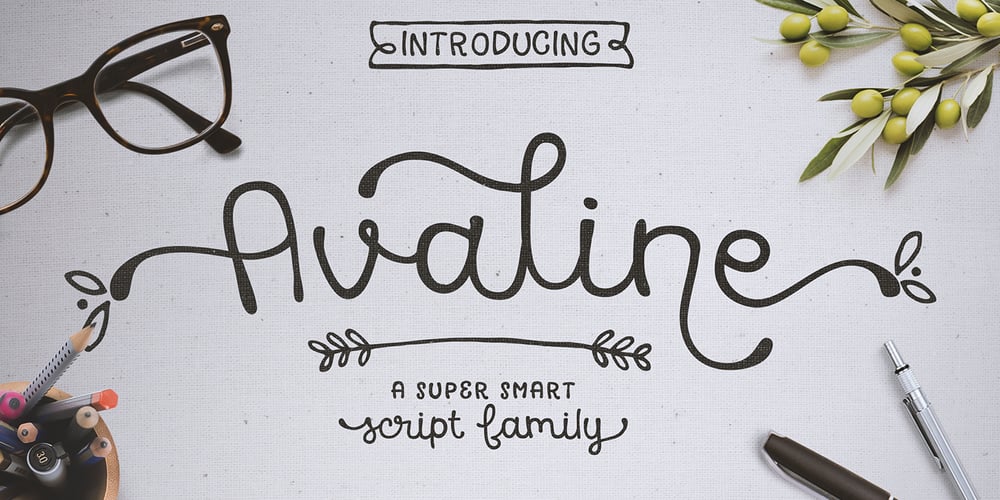
Avaline Script Font Family was designed by Kimmy Kirkwood and published by Kimmy Design. Avaline Script contains 10 styles and family package options. Avaline is a super smart script font that was 100% handmade. Inspired by hand lettering doodles, the font family combines a mischievous spirit and cheerful style. Its playful letterforms come in Light, Regular, Bold and Sketch, and it comes with tons of language support and fun alternatives. Packed with OpenType features, Avaline comes together to make a truly authentic hand script family package. Its imperfect hand-drawn style is utilized by contextual alternatives – giving each character 3 subtle variations as well as special styles that appear automatically based on where they appear in a line of text. Stylistic alternatives offer completely different styles for all capital and some lowercase letters. Swashes provide numerous flourish options for ascending & descending letters as well as characters that start or end text lines. Small caps and titling alternatives provide great secondary text options, converting the script letterforms to more proportional small cap ones. Avaline also comes with a massive set of extras, including catchwords, swashes & flourishes, arrows, borders, line breaks, laurels and frames. Together they make for a truly organic script font bundle. Avaline seriously comes with hundreds of alternative options, to see everything you can do with the family and to learn how to access them, please visit http://tinyurl.com/htwhetr